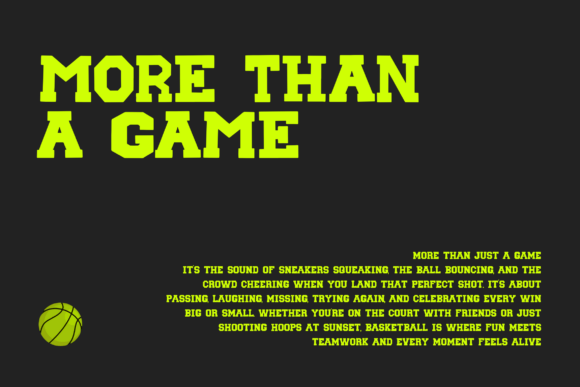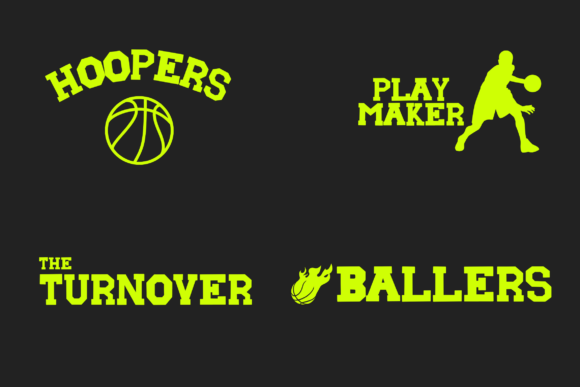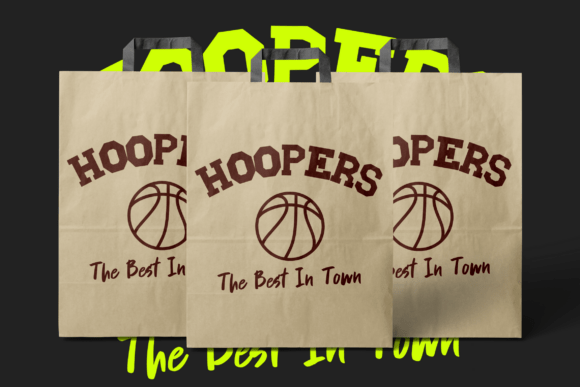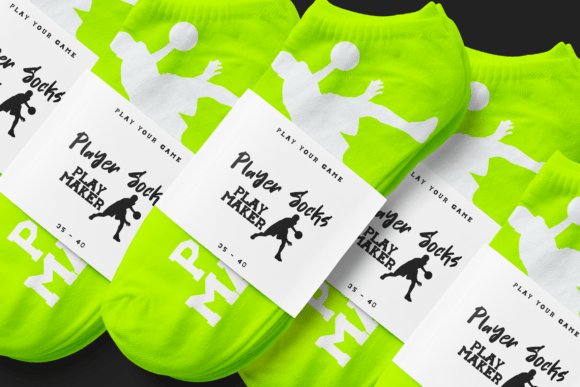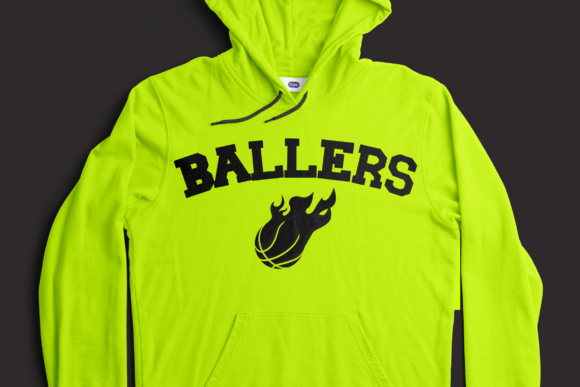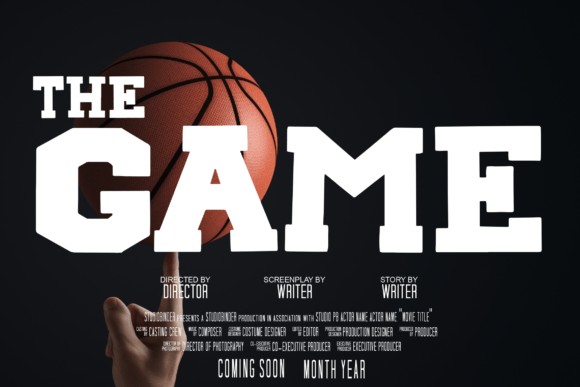
Introducing Blocksmith Font: The Ultimate Varsity Typeface for Bold Designs
Are you looking for a font that exudes school spirit, sports design, and vintage Americana? Look no further than Blocksmith, a strong, all-caps varsity font built for impact. With its thick strokes, sharp corners, and athletic attitude, Blocksmith is the perfect choice for designers and crafters seeking to create bold, eye-catching designs.
The Characteristics of Blocksmith Font
Blocksmith font is characterized by its thick, bold strokes and sharp corners, giving it a rugged, athletic look that’s perfect for sports-related designs. The font’s all-caps design ensures that your text stands out, making it ideal for team jerseys, sports logos, college banners, varsity jackets, and retro-style branding. The clean execution and bold style of Blocksmith deliver a traditional block-letter look that’s both classic and modern.
Uses of Blocksmith Font
Blocksmith font is incredibly versatile and can be used in a variety of design projects, including:
- Team Jerseys: Add a professional, sports-team feel to your jersey designs with Blocksmith’s bold, varsity style.
- Sports Logos: Create eye-catching sports logos that exude energy and competition with Blocksmith’s thick strokes and sharp corners.
- College Banners: Showcase school spirit with Blocksmith’s bold, all-caps design, perfect for college banners and posters.
- Varsity Jackets: Give your varsity jacket designs a classic, retro look with Blocksmith’s traditional block-letter style.
- Retro-Style Branding: Add a touch of vintage Americana to your branding with Blocksmith’s bold, athletic attitude.
Why Choose Blocksmith Font?
So, why choose Blocksmith font for your design projects? Here are just a few reasons:
- Impactful Design: Blocksmith’s bold, all-caps design ensures that your text stands out, making it perfect for designs that need to make a statement.
- Versatility: Blocksmith font can be used in a variety of design projects, from sports-related designs to retro-style branding.
- Classic Style: Blocksmith’s traditional block-letter look is both classic and modern, making it a great choice for designers seeking a timeless design.
- Ease of Use: Blocksmith font is easy to use and pairs well with a variety of other fonts, making it a great addition to any designer’s toolkit.
Tips for Using Blocksmith Font
Here are a few tips for getting the most out of Blocksmith font:
- Use it boldly: Blocksmith font is designed to make a statement, so don’t be afraid to use it boldly in your designs.
- Pair it with contrasting fonts: Blocksmith font pairs well with a variety of other fonts, so experiment with different combinations to find the perfect look for your design.
- Experiment with colors: Blocksmith font looks great in a variety of colors, so don’t be afraid to experiment with different color schemes to find the perfect look for your design.
In conclusion, Blocksmith font is a strong, all-caps varsity font built for impact. With its thick strokes, sharp corners, and athletic attitude, Blocksmith is the perfect choice for designers and crafters seeking to create bold, eye-catching designs. Whether you’re designing team jerseys, sports logos, college banners, varsity jackets, or retro-style branding, Blocksmith delivers a traditional block-letter look with clean execution and bold style. So why wait? Give Blocksmith font a try today and see the impact it can have on your designs!